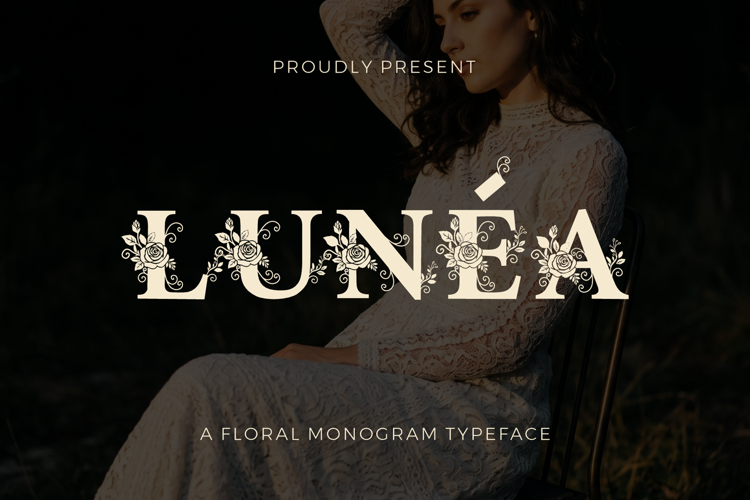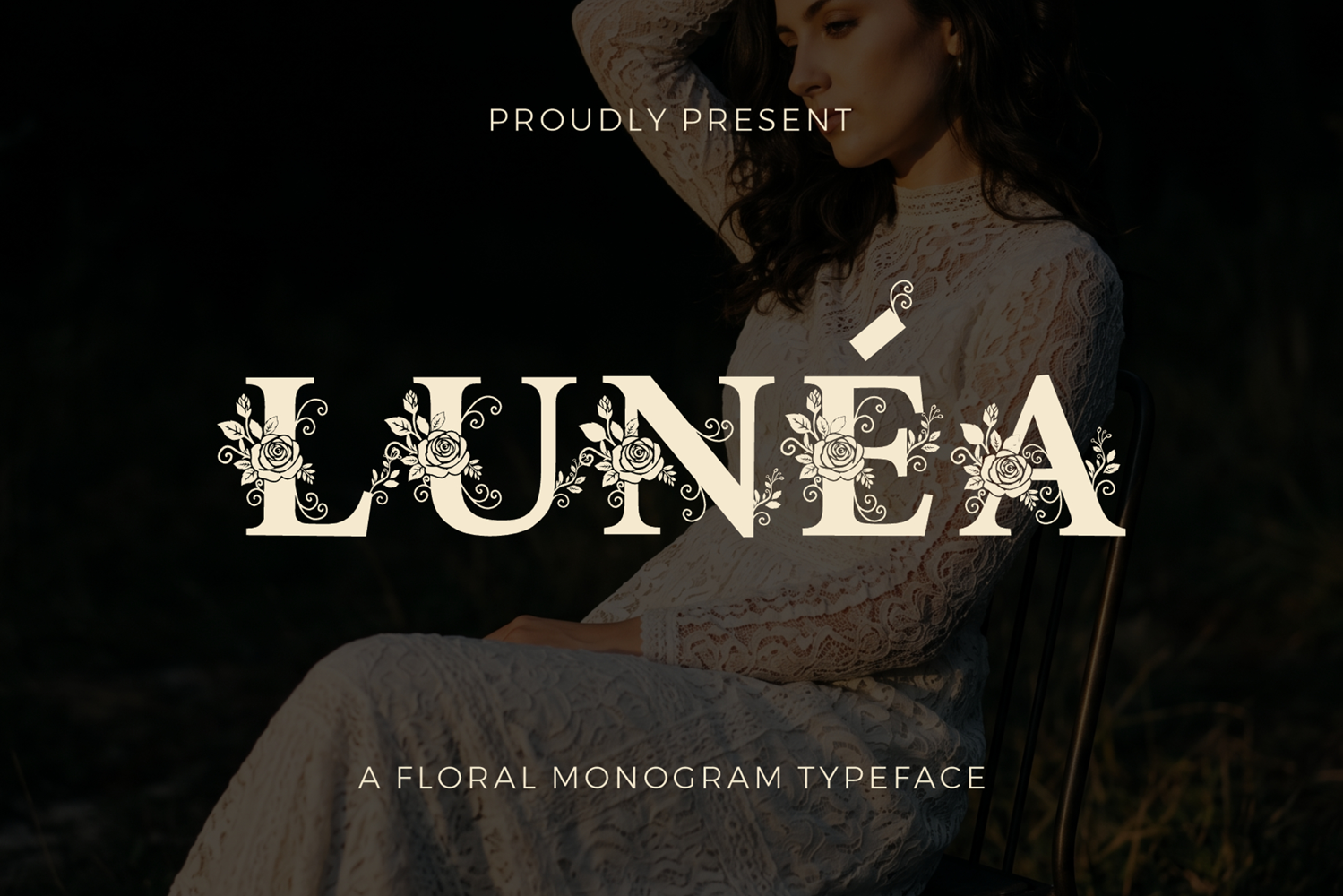
Lunéa | Floral Monogram Font
Lunea Floral Monogram Font emerges as a typographic masterpiece that radiates natural beauty, timeless grace, and a profoundly deep sense of organic aesthetics. This typeface is specifically engineered to meet the sophisticated demands of professional designers who crave a flawless fusion of bold capital letter structures and the delicate softness of rose illustrations alongside gracefully intertwining leaf vines that flourish naturally across every curve. The OpenType Font (OTF) and TrueType Font (TTF) formats provide absolute versatility, empowering you to seamlessly implement this digital artwork across diverse design software platforms, whether desktop-based or cloud-driven. Through intricate botanical ornaments precisely integrated into the anatomical blueprint of each character, Lunea breathes a romantic, luxurious, and exclusive atmosphere into every creative venture you pursue. The primary benefit of these raw vector file formats lies in the impeccable sharpness of their lines, which remain flawless even when scaling objects drastically for massive print media or outdoor billboards.
Each uppercase letter in this magnificent collection carries an entirely unique, non-repetitive visual identity. The blooming rose components are thoughtfully arranged to respect the balance between positive and negative space, ensuring the legibility of your primary text is perfectly maintained. When you work with this monochromatic floral typeface, you are doing far more than typing out mere words; you are curating a high-end decorative art piece possessing immense visual magnetism. Beyond the grandeur of the capital letters, this digital asset package includes a fully comprehensive set of functional numerical digits and matching punctuation marks. The aesthetic alignment between mathematical text, sentence indicators, and botanical embellishments is meticulously executed to prevent any jarring visual clashes when arranged together in a single layout. This comprehensive cohesion is vital for high-end wedding invitations, luxury initial monograms, premium perfume branding, and classic romance book covers that demand a unified visual narrative from the first page to the last.
Expanding on its elaborate feature set, this offline installation package carries extensive multilingual support, built to effortlessly navigate global marketplaces spanning Europe, the Americas, and Asia. The built-in international accent characters enable content creators to write in various Latin-based languages without worrying about missing symbols or system errors. This worldwide flexibility transforms Lunea into an incredibly lucrative, long-term digital asset investment for creative studios and freelance designers dealing with international clients. The combination of fluid curves and solid serif foundations produces an astonishing visual contrast, making it the premier choice for event decor, beauty packaging, skincare labeling, boutique hotel signage, and high-end fashion lines that celebrate feminine grace and top-tier exclusivity.
Utilizing the original files of this typeface will make your graphic design workflow significantly faster, highly efficient, and genuinely enjoyable, thanks to the orderly structure easily accessed via glyph panels in modern editing applications. The visual allure offered captures audience attention instantly, elevating product value and leaving a lasting impression from the very first glance. The authentic design process—incorporating hand-drawn rose details into a digital font format—guarantees that your output will always look fresh, authentic, and completely free from the generic feel common among standard typefaces. Choose this premium typographic solution to transform your imaginative concepts into stunning visual realities that captivate the world.